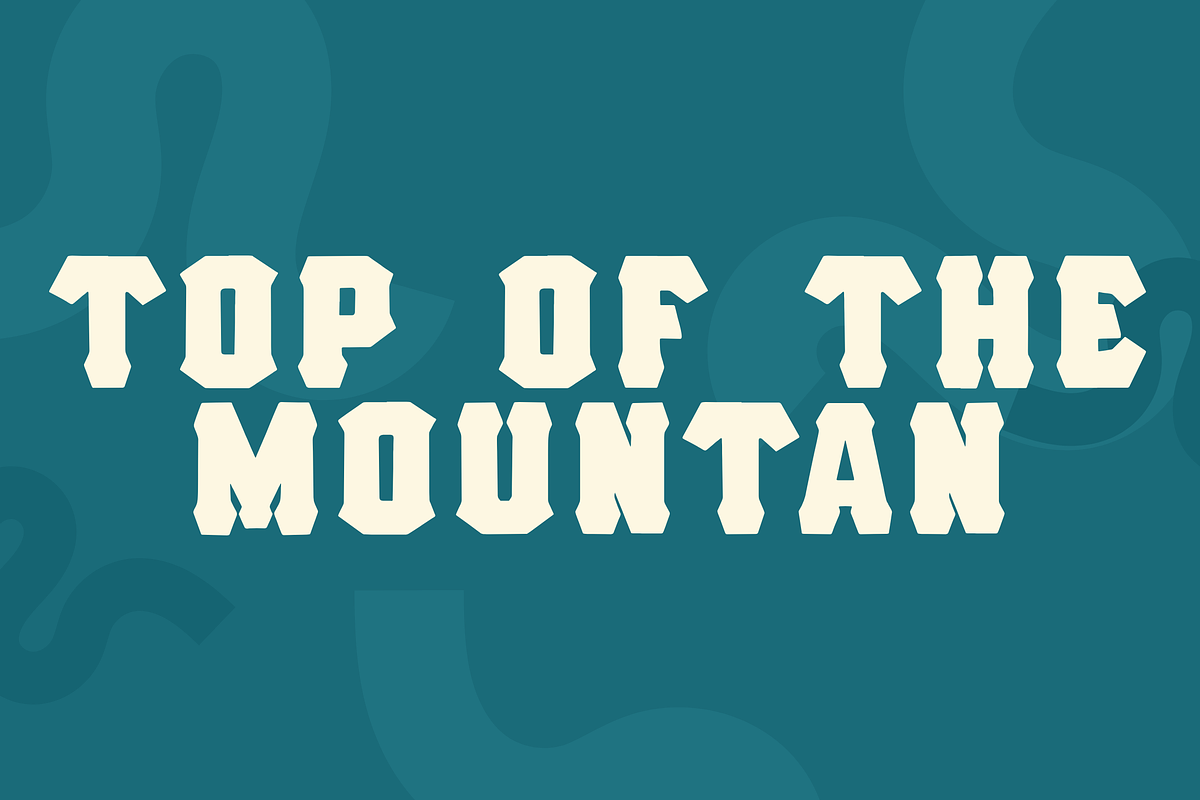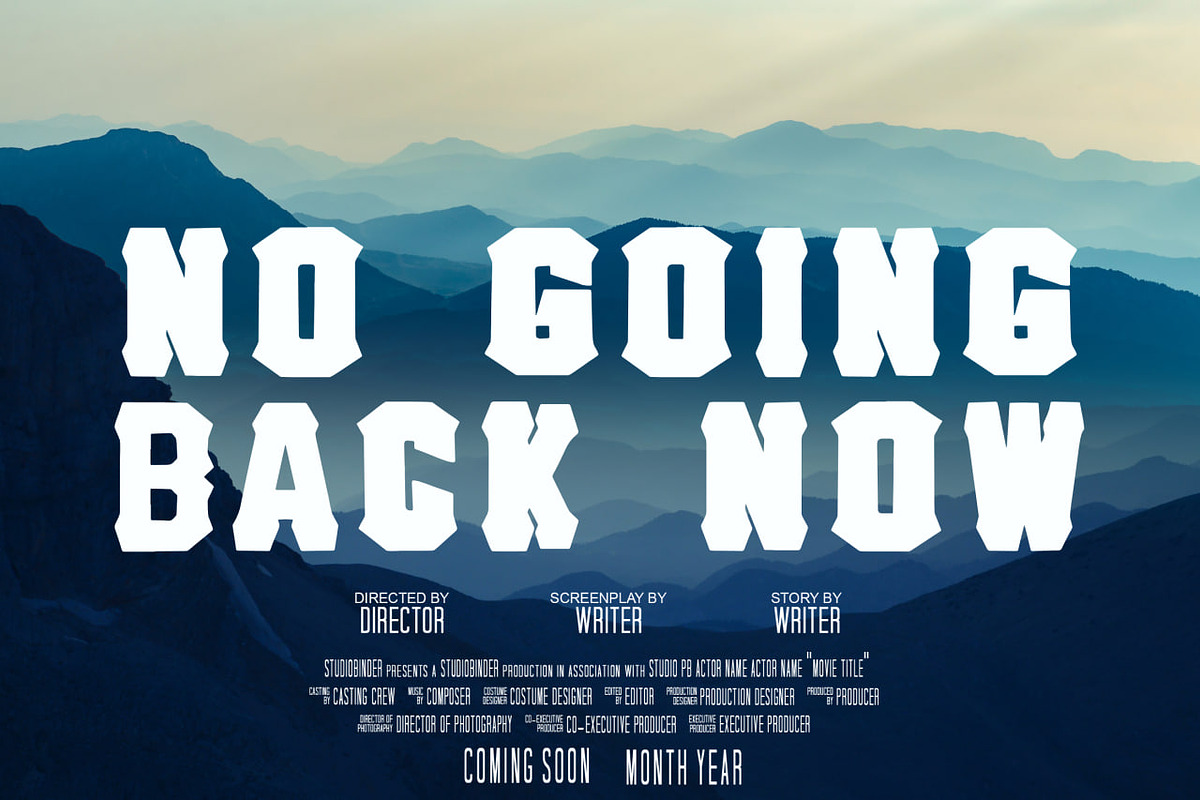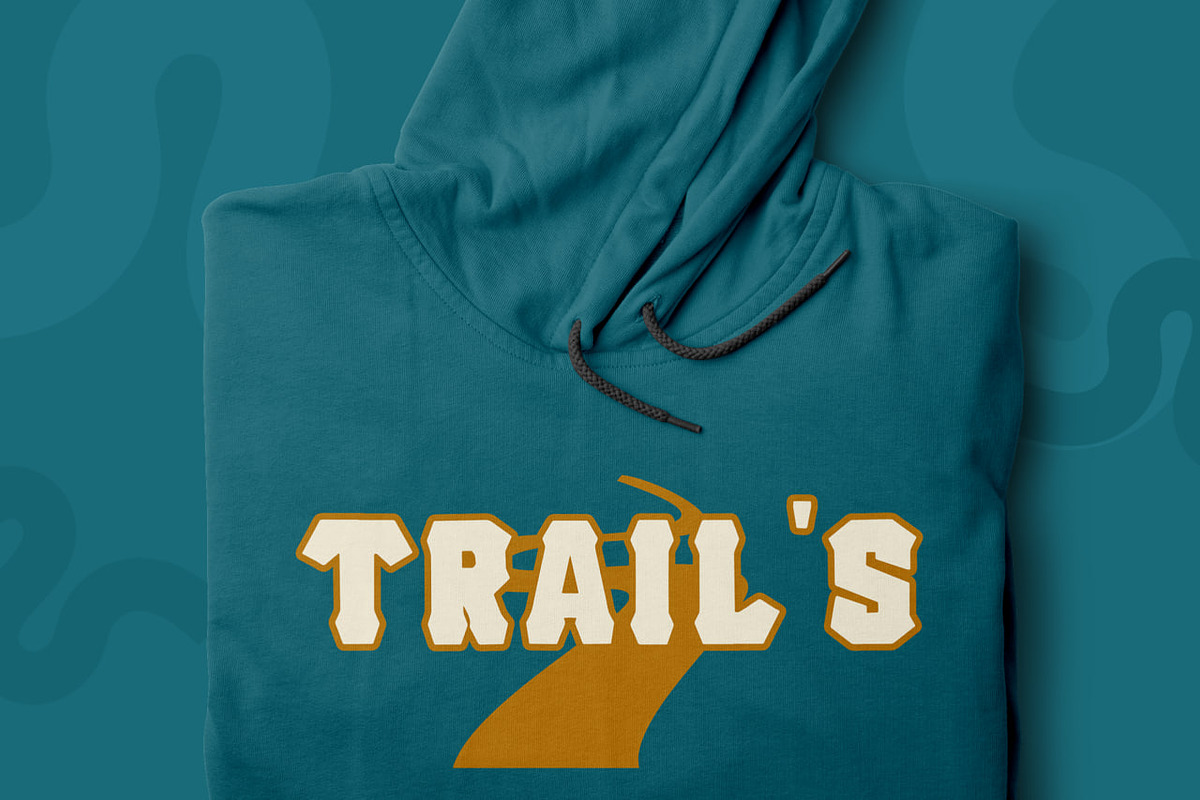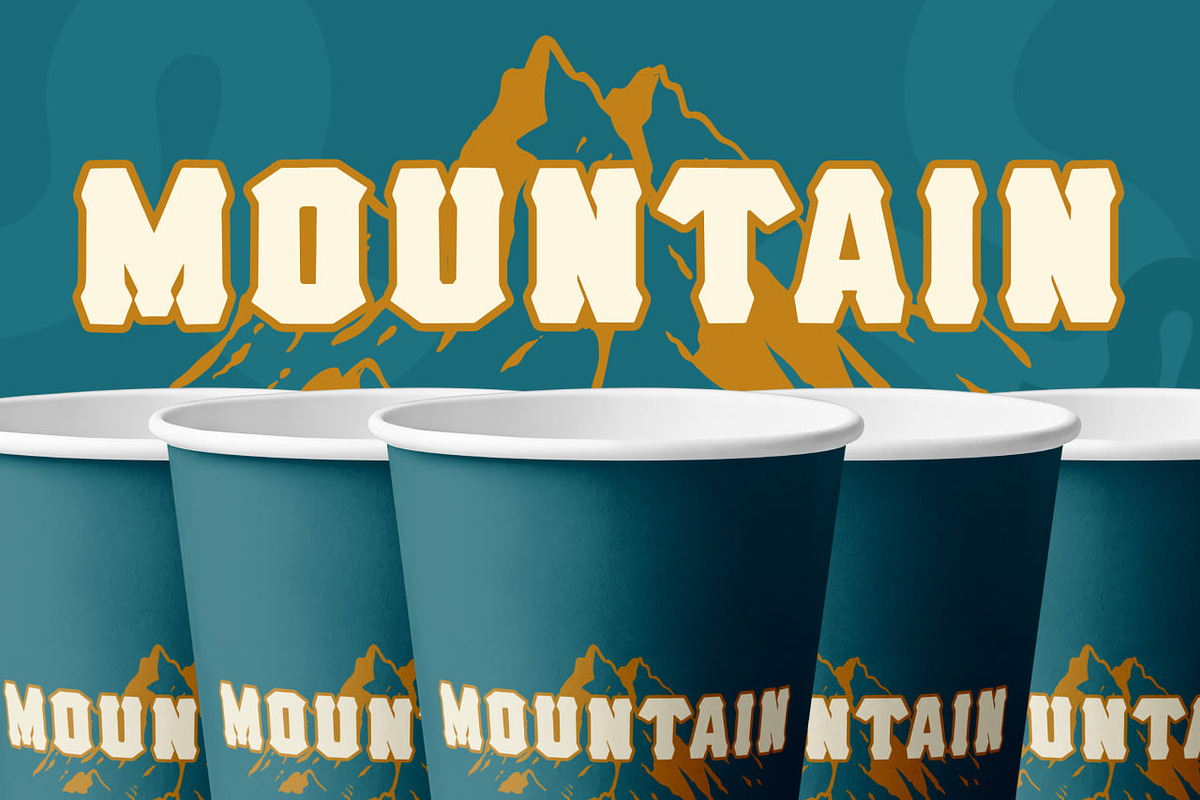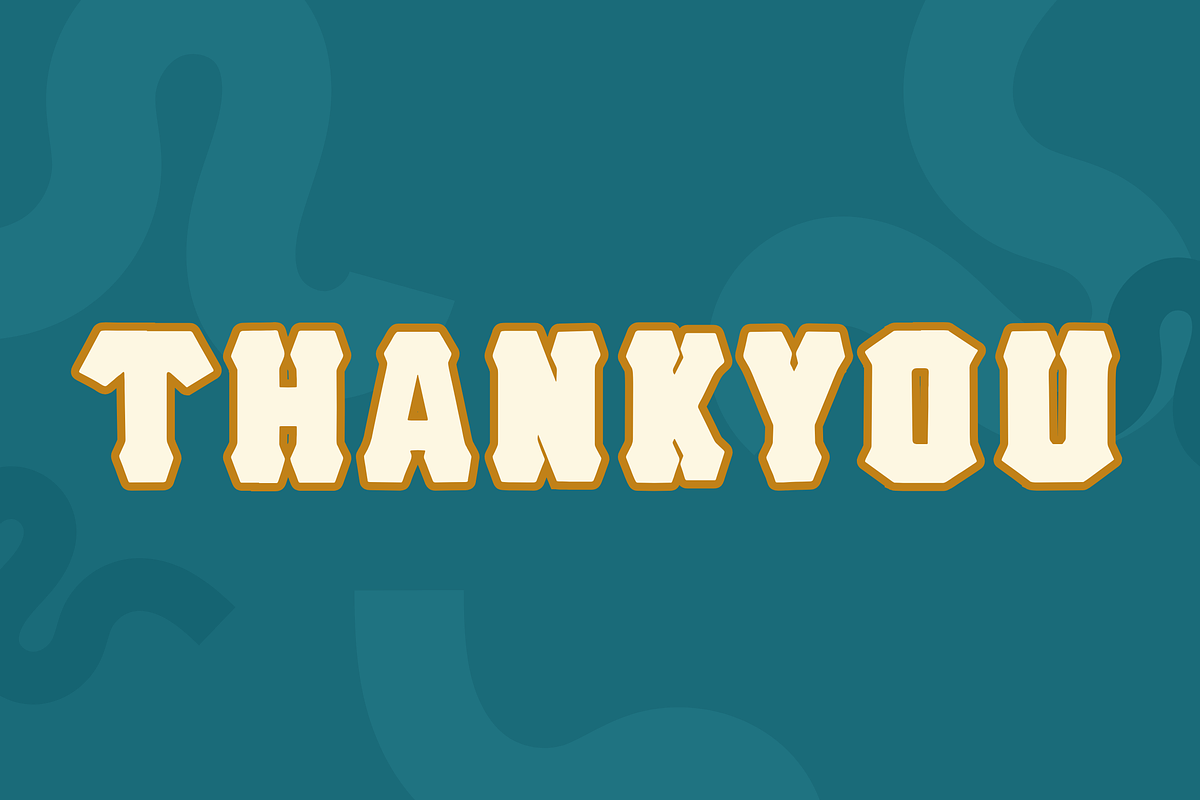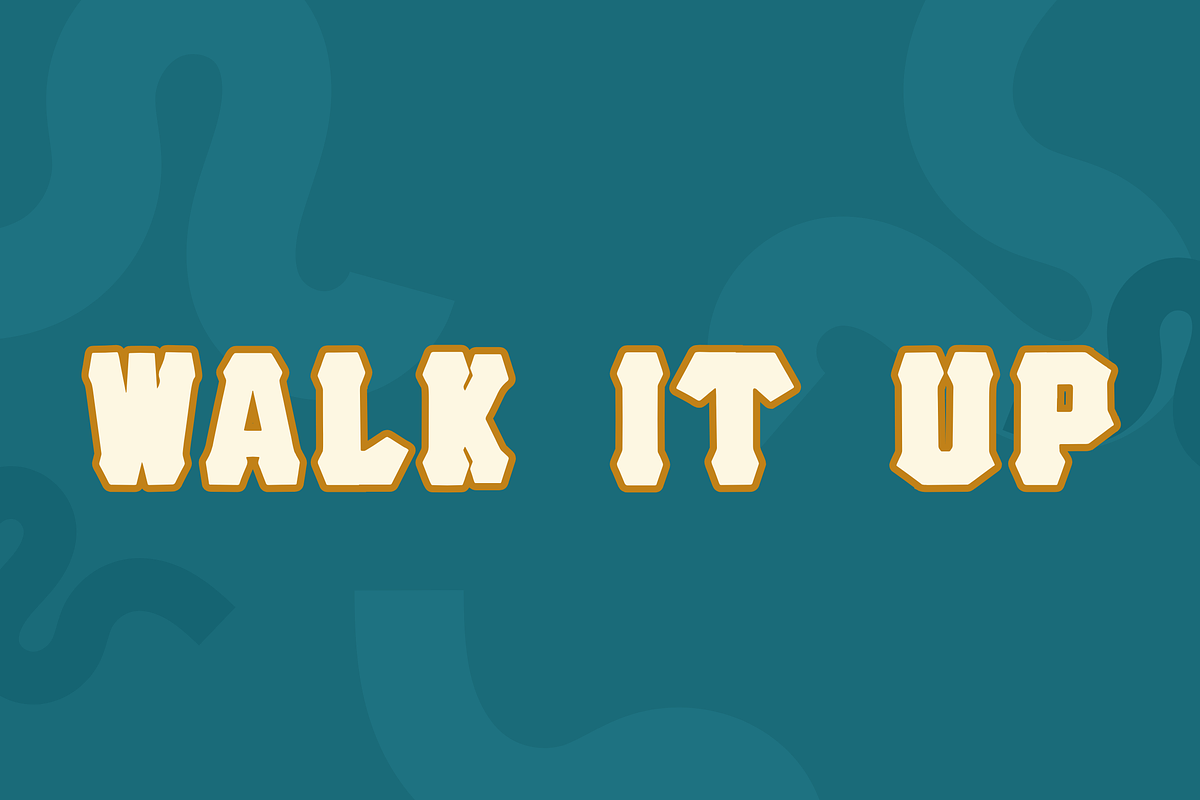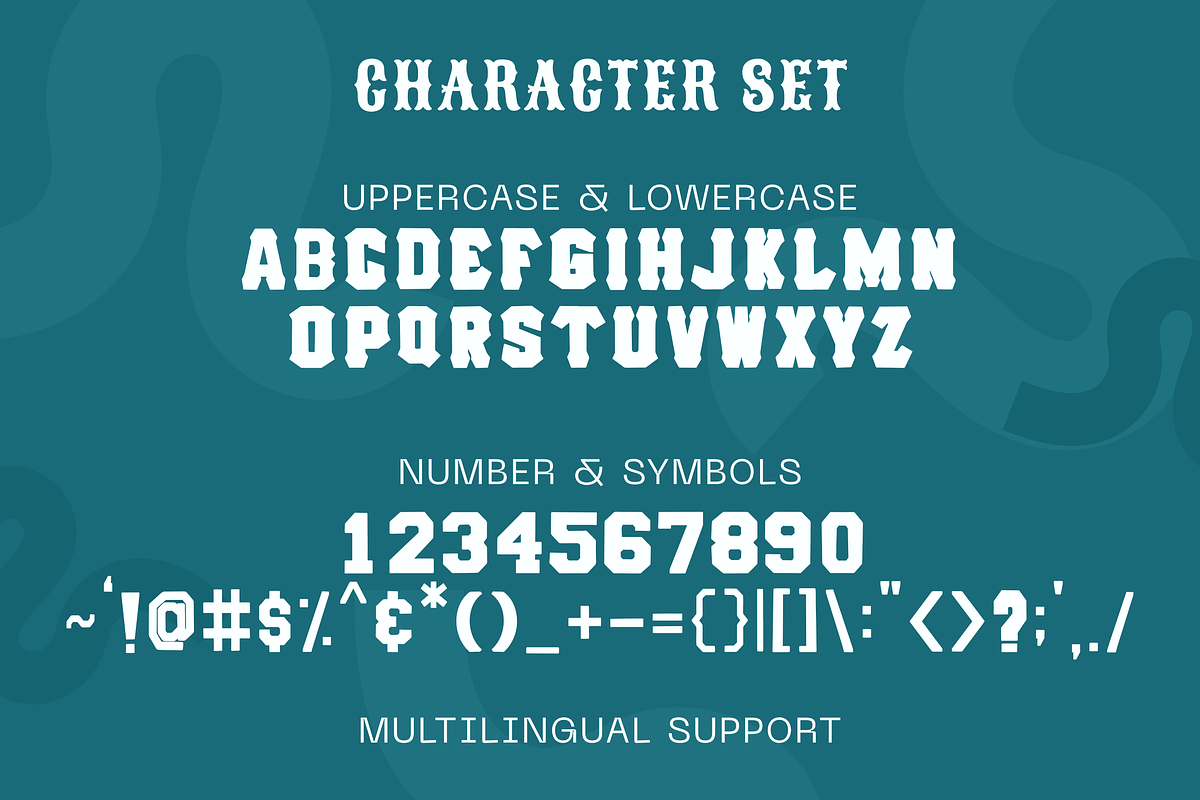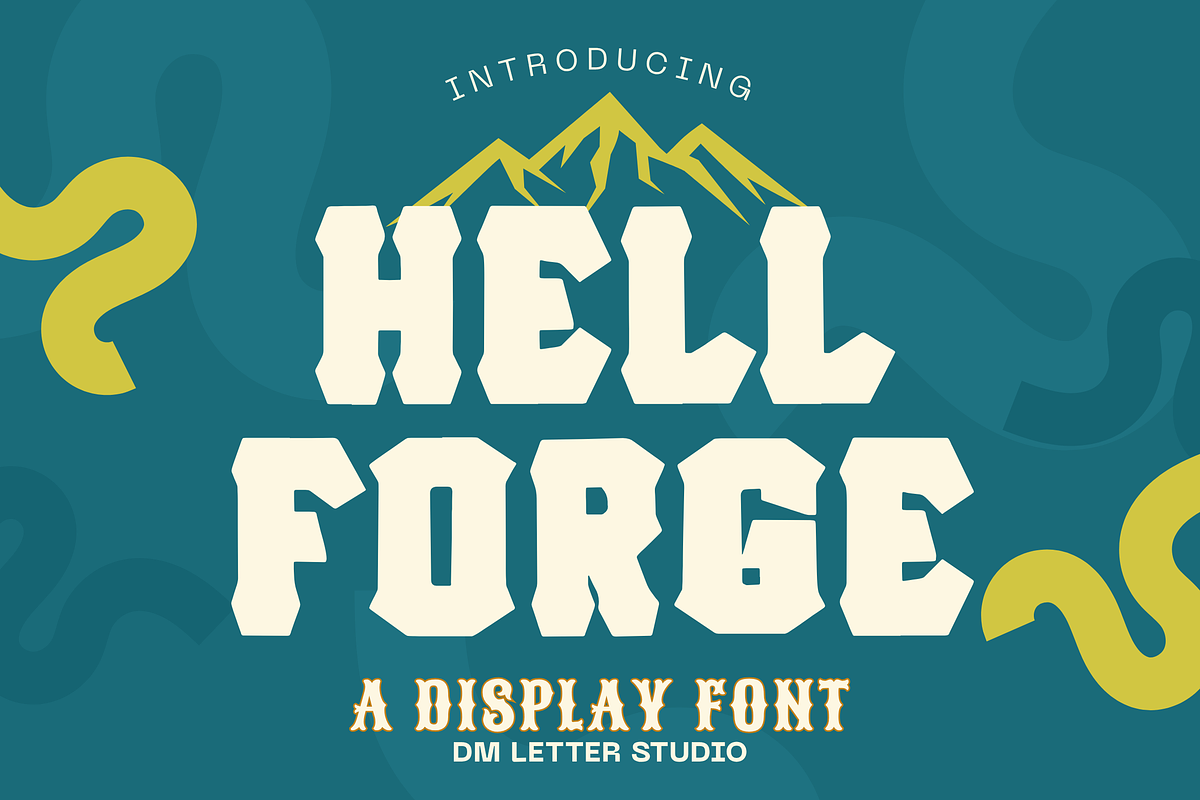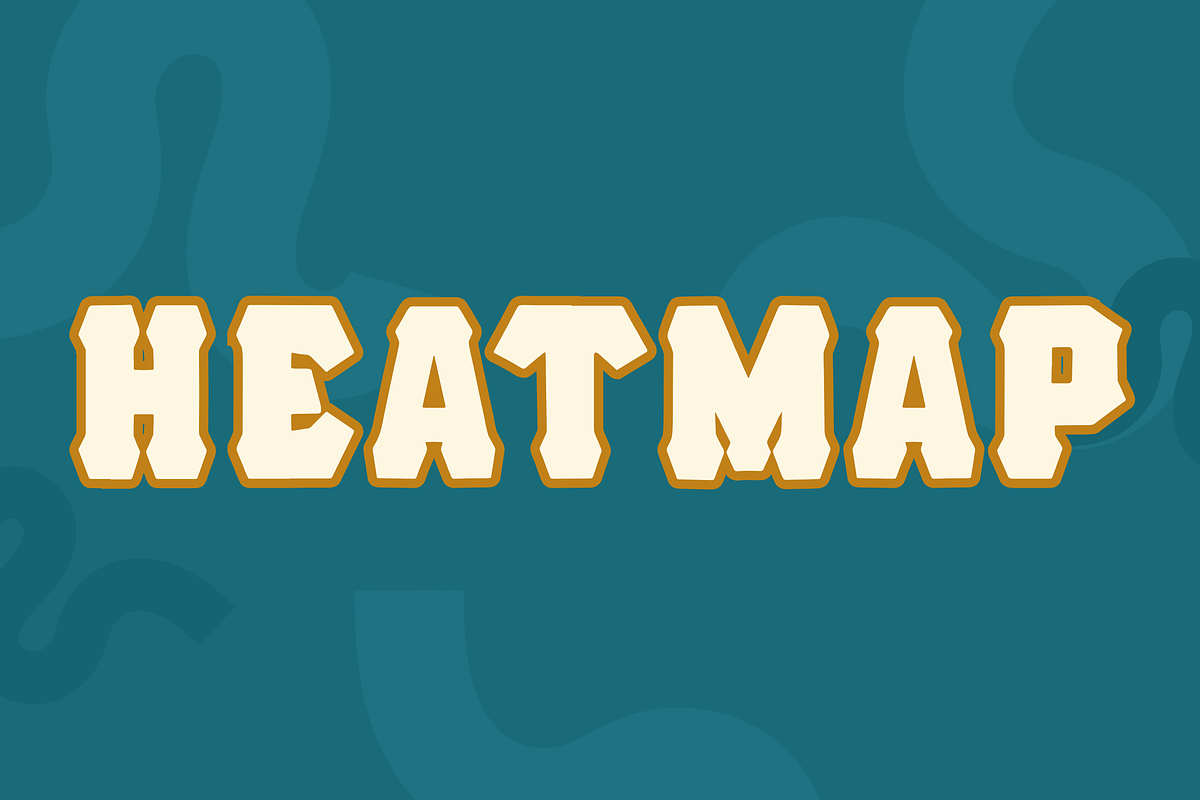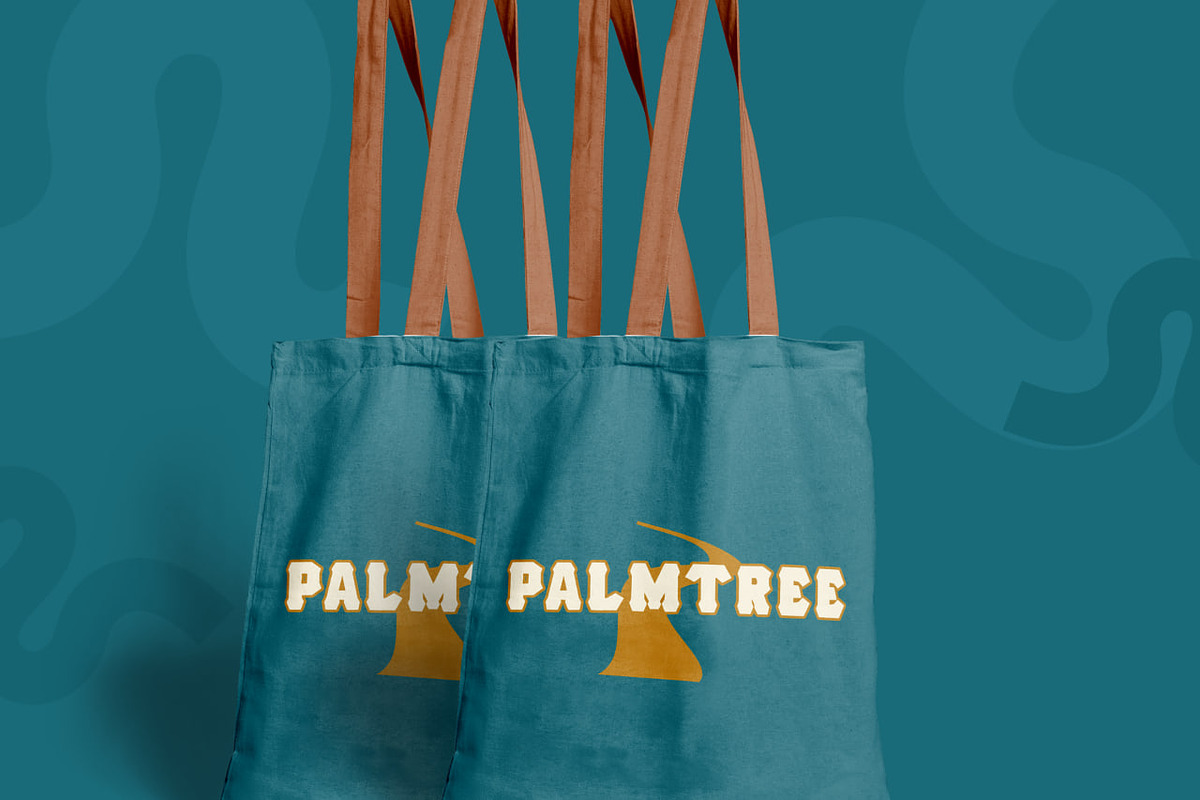
Hell Forge
Meet Hell Forge, the Display Font
Hell Forge is a bold display font with a forged, heavy-duty character made for strong branding. The shapes feel tough and confident, like stamped metal, garage signage, or a rugged badge logo. Each letter is built to stay readable at large and medium sizes, so headlines hit hard and logos feel solid. Use Hell Forge for streetwear, sports graphics, biker and garage branding, barbershop logos, gaming titles, packaging, and merch designs. As a result, your typography looks powerful, masculine, and built to stand out.
Why Hell Forge sells
Fast layouts with the Hell Forge Font
Start with short, punchy words for maximum impact. After that, pair Hell Forge with a clean condensed sans for supporting text like dates, details, or pricing. Because the font is heavy, give it breathing room and avoid busy backgrounds. In addition, it looks great inside badge shapes, shields, circles, and banner ribbons. Finally, save palettes like black and white, charcoal and steel, red and black, or tan and black for quick rugged designs.
Creative uses and quick wins
- Streetwear logos, patches, and merch drops
- Sports headlines, team graphics, and badge logos
- Garage, barbershop, gym, and motorcycle branding
- Packaging for coffee, hot sauce, tools, and lifestyle goods
Design tips for Hell Forge
Use Hell Forge for headlines, logos, and short statements, then keep body text simple. Also, increase tracking slightly when placing it on textured backgrounds. For print, export at 300 DPI and test small sizes if you plan to engrave or cut vinyl. For digital, scale up a bit so edges stay sharp on mobile. Finally, if you want extra punch, add a simple outline or place the text on a solid badge shape.